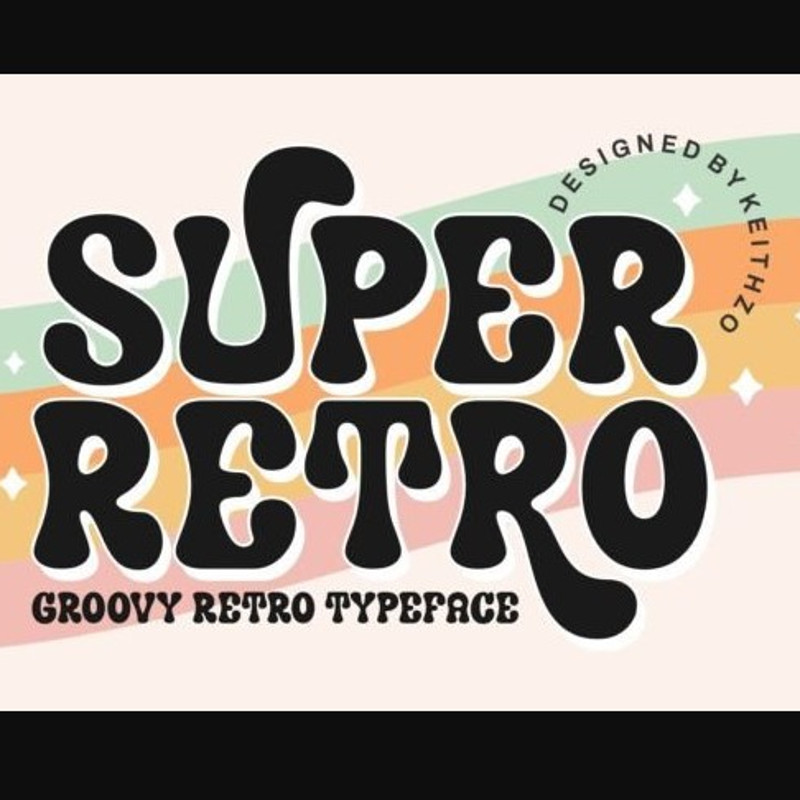
Super Retro is a retro and unbalanced display font that brings a sense of uniqueness to your designs. Its irregular lines and uneven letters create a dynamic and energetic look that is perfect for posters, album covers and designs that require a vintage and edgy feel. Imbalance adds a unique and bold statement to any project.